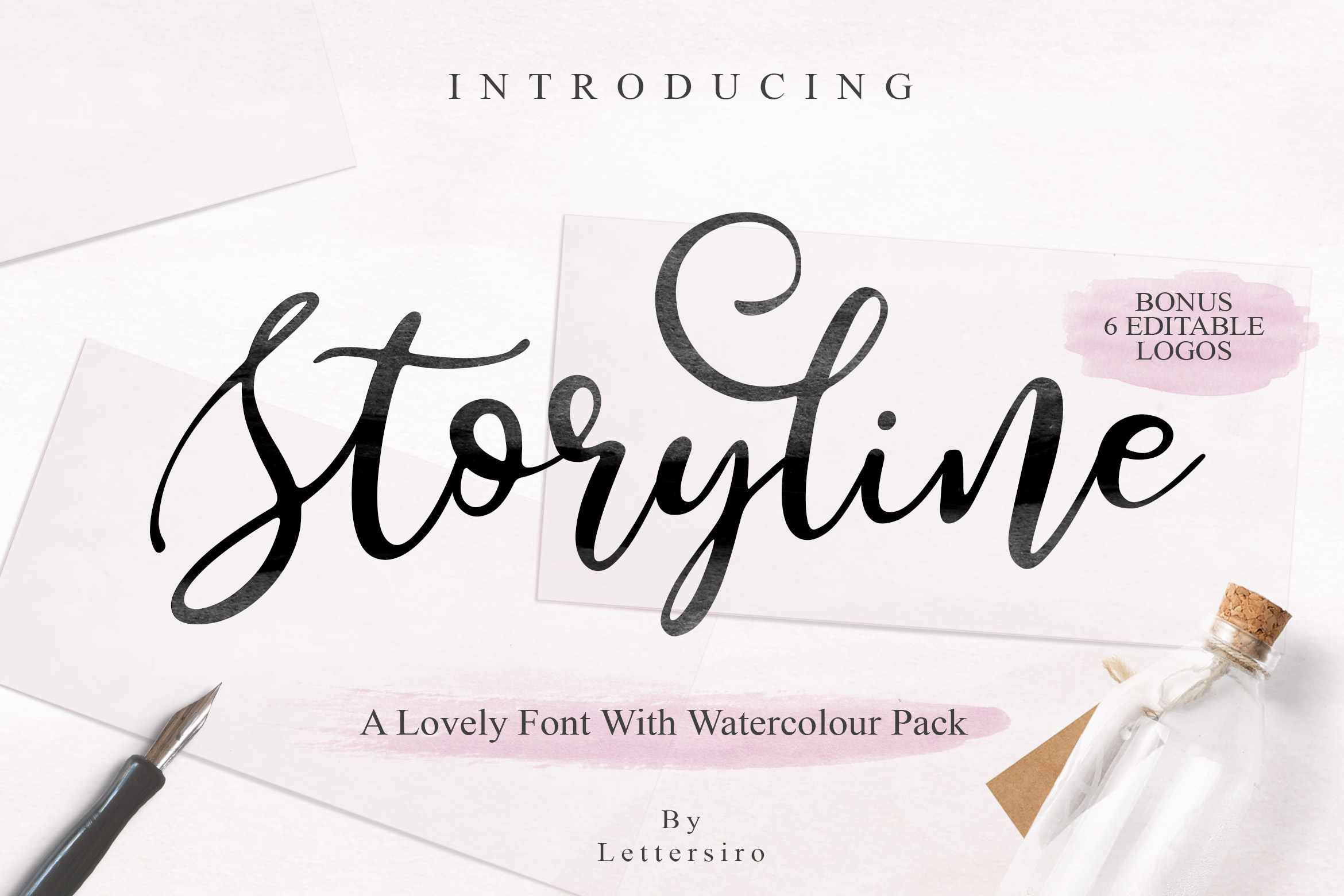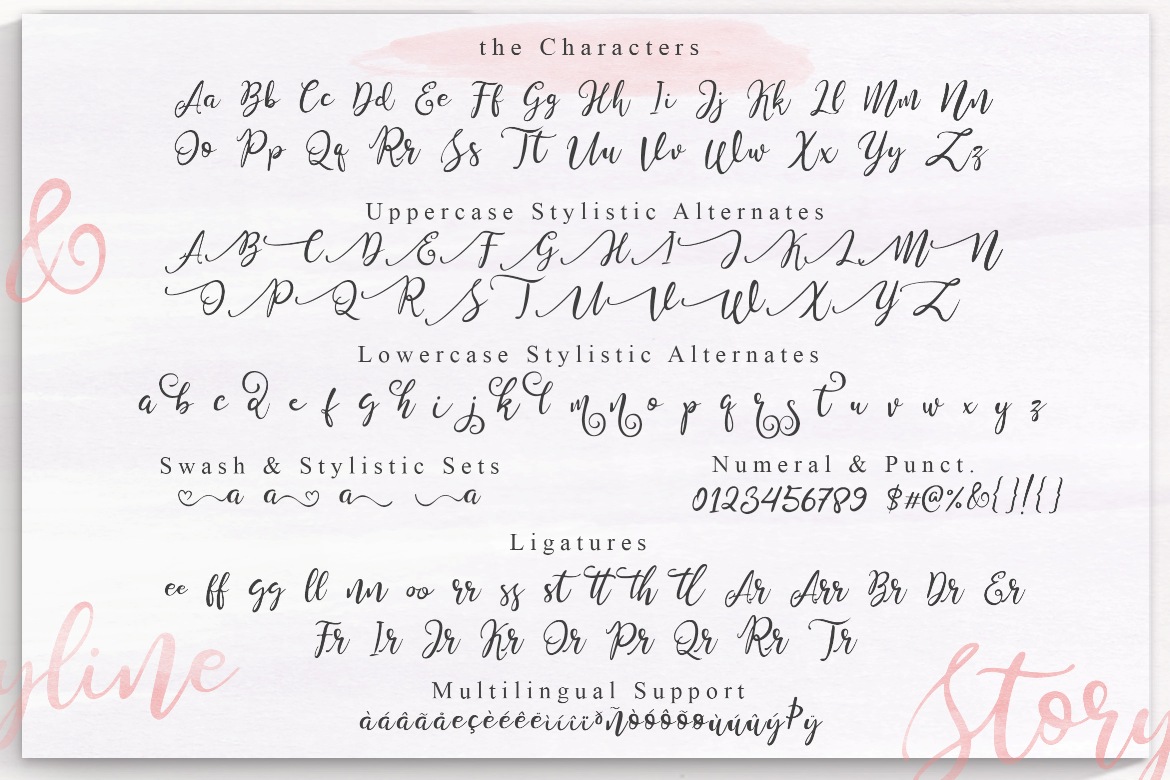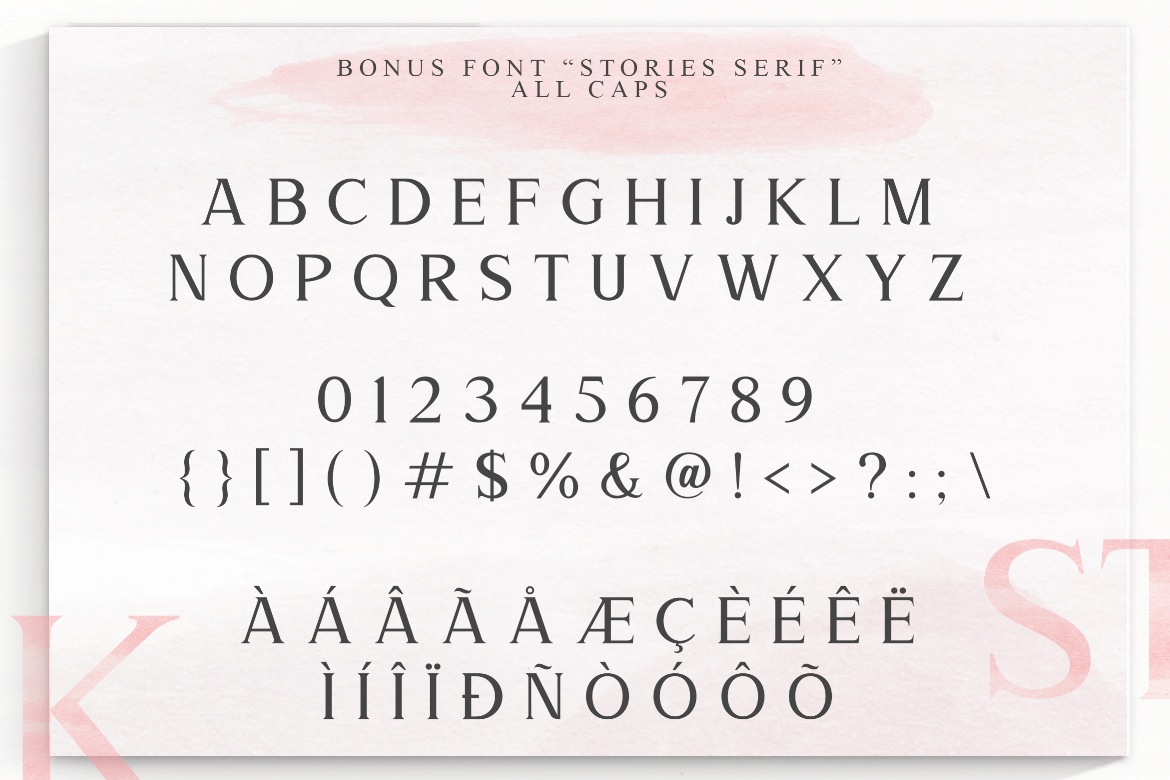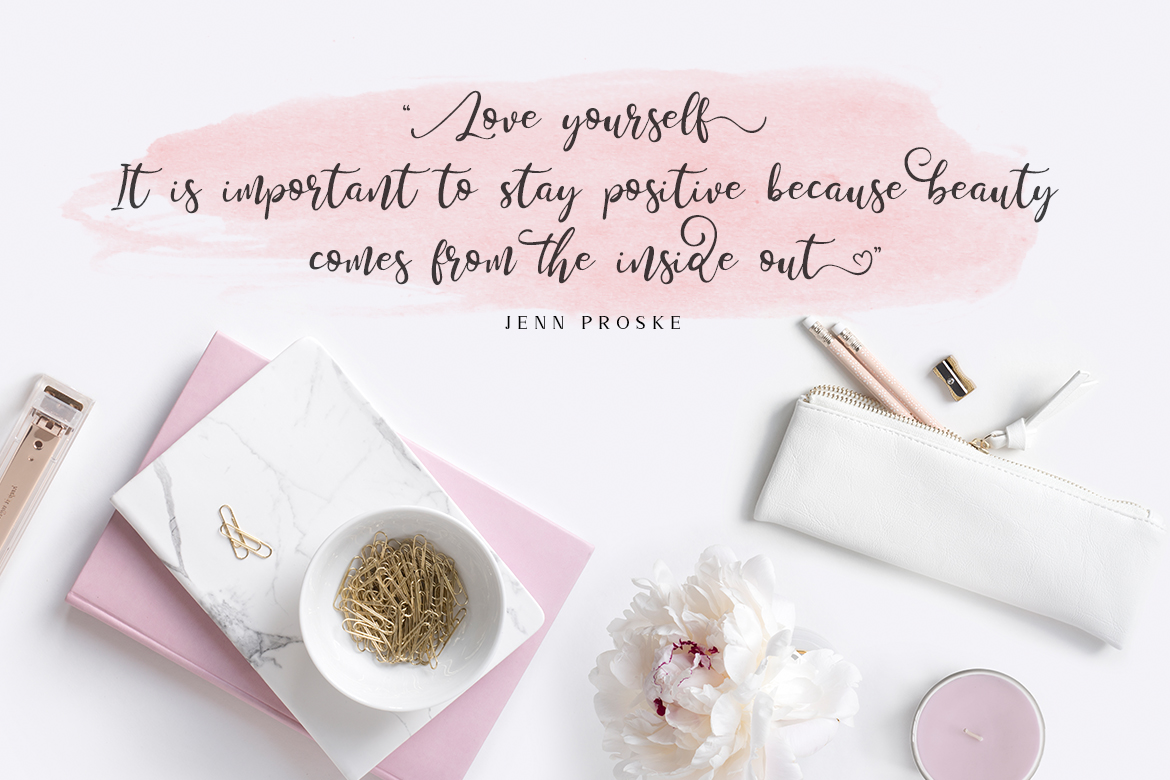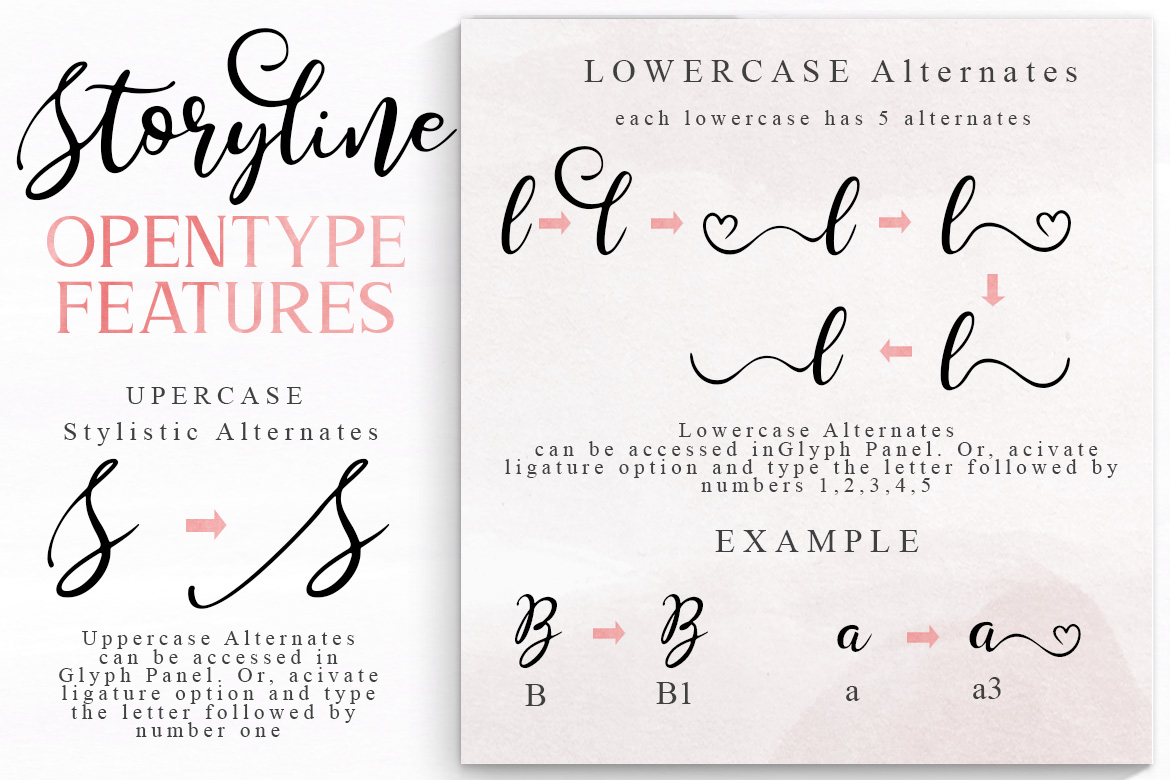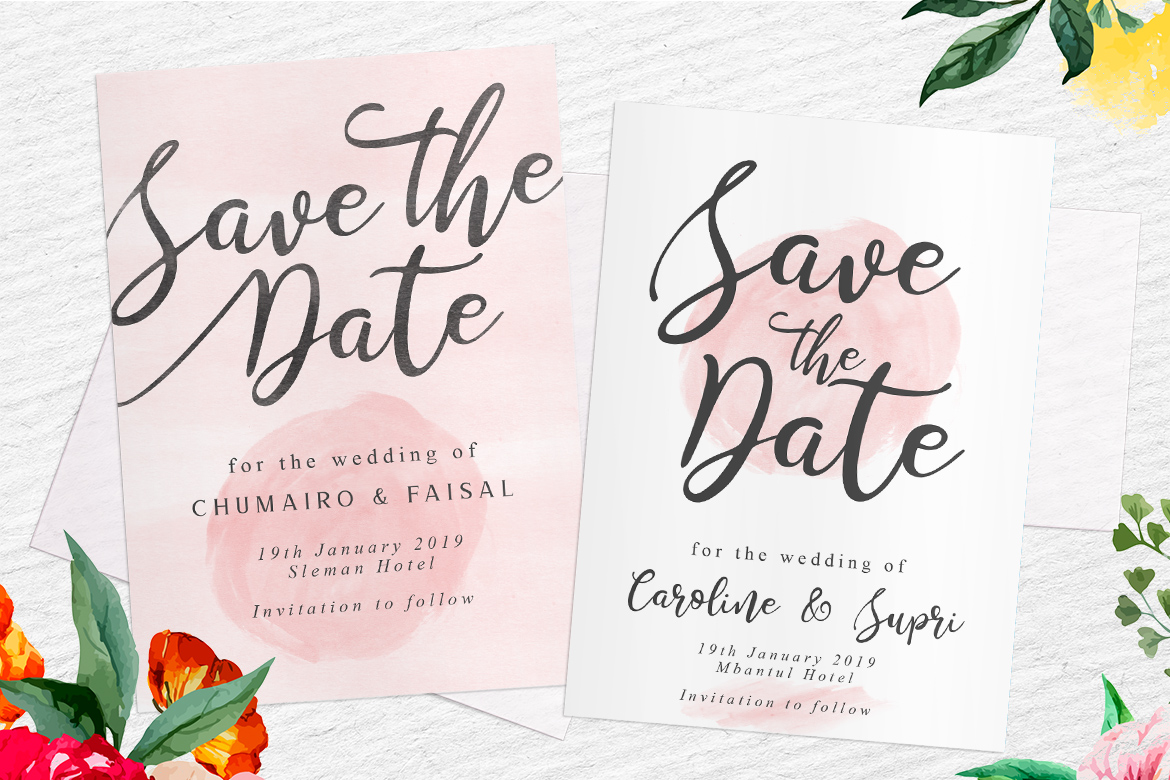
Storyline Font
About Storyline Font
Storyline is a stunning font duo, packed with romance.
It has a luxurious, almost glorious feel to it. It comes backed with loads of alternates, allowing you to let your creativity run free and come up with stunning, unique designs over and over again.